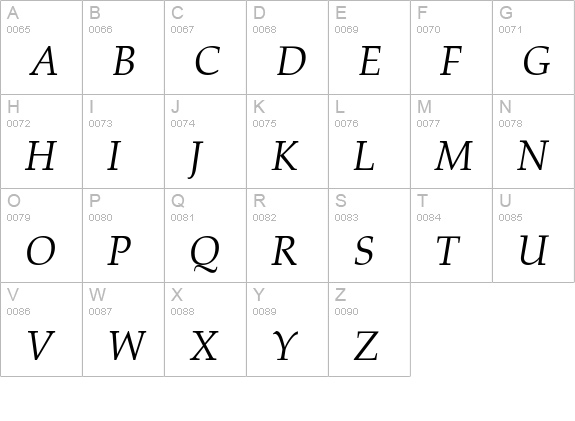
Criteria OldStyle SSi Normal is the standard, neutral variant in the Criteria typeface family \xE2\x80\x94 well suited to general body text, paragraphs, and standard typographic work.
Criteria OldStyle SSi Normal font is a classic and elegant typeface that exudes sophistication and timelessness. With its vintage charm and refined details, this font is perfect for projects that require a touch of sophistication and tradition. The graceful serifs and balanced proportions of Criteria OldStyle SSi Normal make it a versatile choice for a wide range of design applications. Best of all, Criteria OldStyle SSi Normal font is available for free download at FontsMarket.com. Whether you're working on a branding project, editorial design, or any other creative endeavor, this font will add a touch of class and elegance to your work. Download Criteria OldStyle SSi Normal font today and elevate your designs with its timeless appeal.